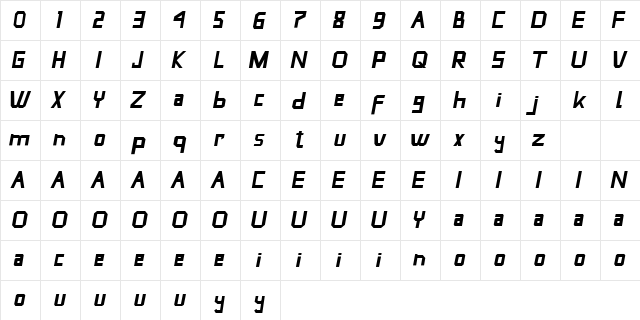
Oat Meal Regular Font Preview
Oat Meal Regular
Oat Meal Regular Font Details
| Foundry | DawnCreative.id |
| Designer | Fajar Rachmadi P |
Design Context for Oat Meal Typeface
Oat Meal is a composed and adaptable typeface that performs quietly and consistently across a wide range of design contexts.
Pro Tip: Use Oat Meal in both headline and body roles to test its range before committing to a single application.